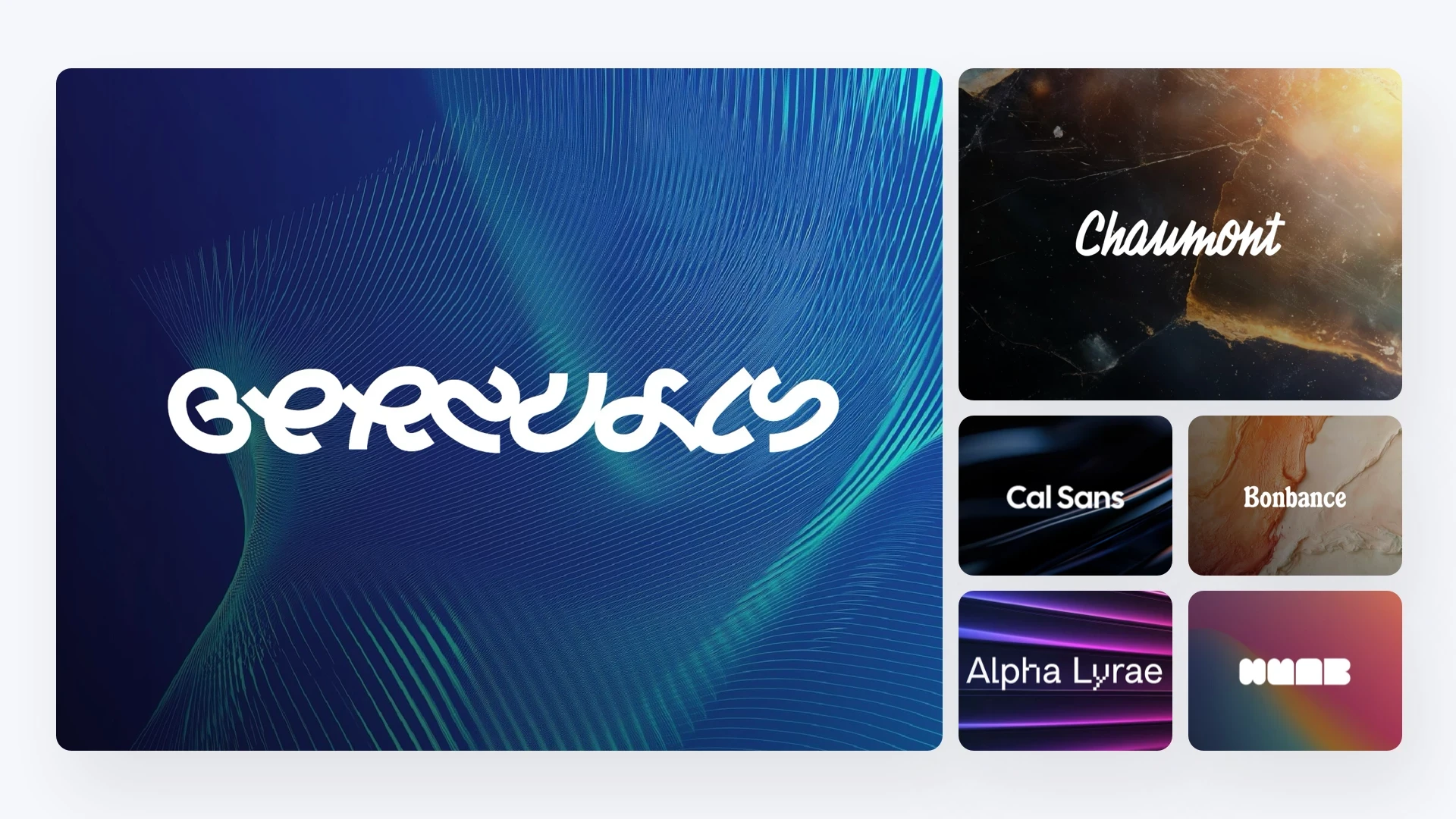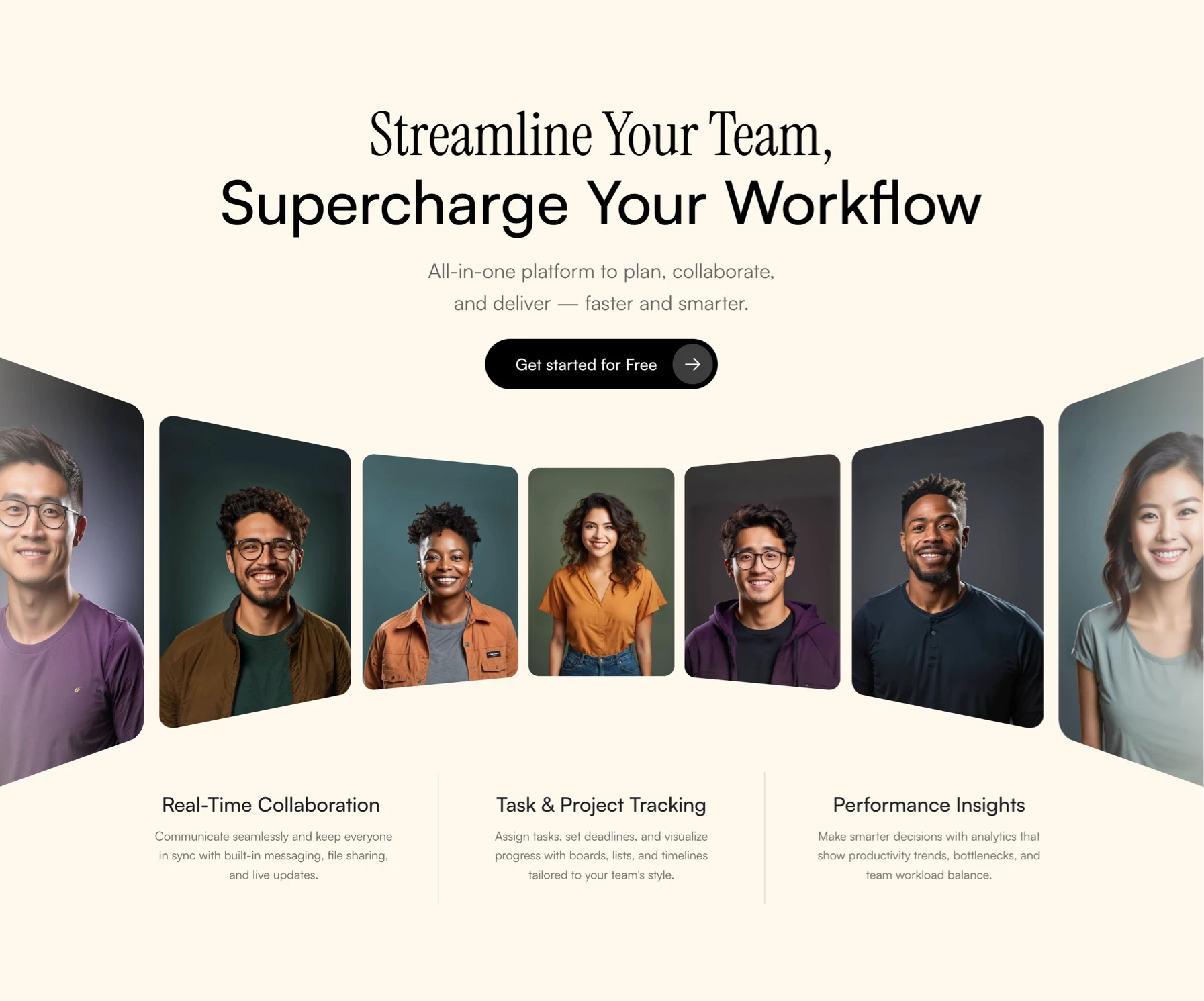
30 Best Fonts for Framer Websites and Templates
Discover 30 top fonts for Framer websites that combine style and readability. From modern sans-serifs to elegant serifs, these fonts will elevate your design and user experience.
30 Best Fonts for Framer Websites and Templates
Choosing the right font is essential for creating an engaging and user-friendly website. In this blog post, we’ll explore some of the best fonts to use on Framer websites and templates, ensuring your design is both visually appealing and highly readable across all devices. Whether you're looking for modern sans-serifs or elegant serifs, these top font choices will help elevate your web design and enhance the user experience.
Best fonts for Framer Websites and Templates
1. Urbanist
The Urbanist font is a sleek, geometric sans-serif typeface designed for modern web design. Its clean aesthetic and excellent readability make it ideal for creating stylish, user-friendly websites that stand out on any device.
1. Sora
The Sora font is a contemporary sans-serif typeface that blends clarity with a modern aesthetic, perfect for websites. Designed for digital interfaces, its clean lines and excellent readability ensure your content looks professional and accessible on all devices.
1. Stardom
The Stardom font brings bold, expressive style to Framer websites and templates, making it ideal for eye-catching designs. Its modern, dynamic look ensures your content stands out while remaining clear and engaging on all devices.
We've crafted a sleek personal website hero section component for Framer using the Stardom font in the headline. Check out the ready-made responsive version here.
1. Switzer
The Switzer font is a versatile sans-serif typeface perfect for Framer websites and templates. Its clean design and excellent readability make it ideal for creating polished, modern web experiences that look great on any device.
1. Ultra
The Ultra font is a bold, modern typeface that adds impact and style to any website. Its striking design and strong readability make it perfect for attention-grabbing headings and dynamic content across all devices.
1. Work Sans
The Work Sans font is a clean, modern sans-serif typeface that works perfectly on Framer websites and templates. Its excellent legibility and versatile design make it ideal for creating sleek, user-friendly web experiences on any device.
1. Yellowtail
The Yellowtail font is a stylish script typeface that adds a touch of elegance to any website. Its flowing, hand-lettered design makes it perfect for creating memorable headers and accent text that stand out with personality and charm.
1. Young Serif
The Young Serif font combines modern elegance with classic serif styling, making it perfect for sophisticated websites. Its clean, readable design adds a touch of refinement to your content, enhancing the user experience across all devices.
We've created a hero section component for Framer using the Young Serif font for the headline, which pairs beautifully with the clean Urbanist font. You can view the live version and easily copy and paste the entire section into your Framer project.
1. Yeseva One
The Yeseva One font is a stylish serif typeface that brings a touch of elegance to any website. Its bold and distinctive design enhances readability, making it perfect for creating eye-catching headings and sophisticated content on all devices.